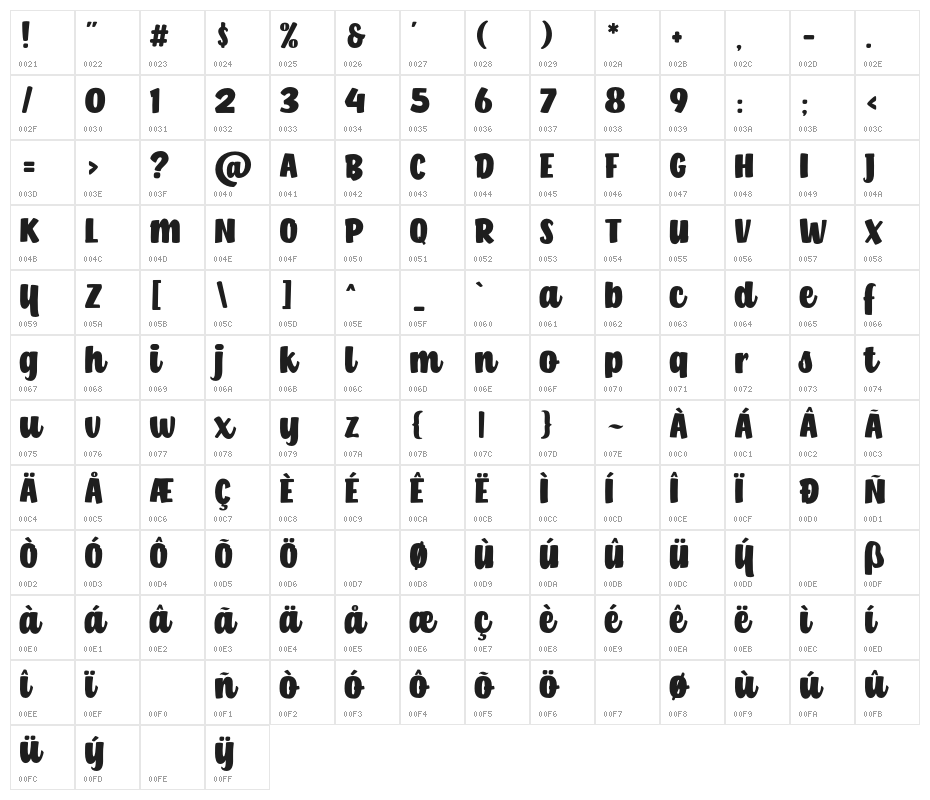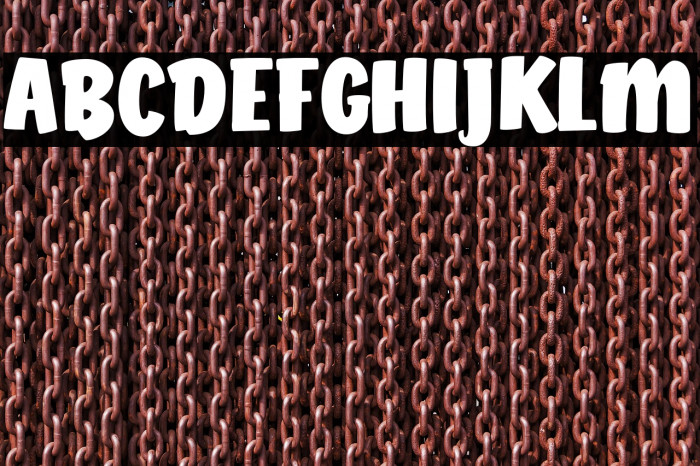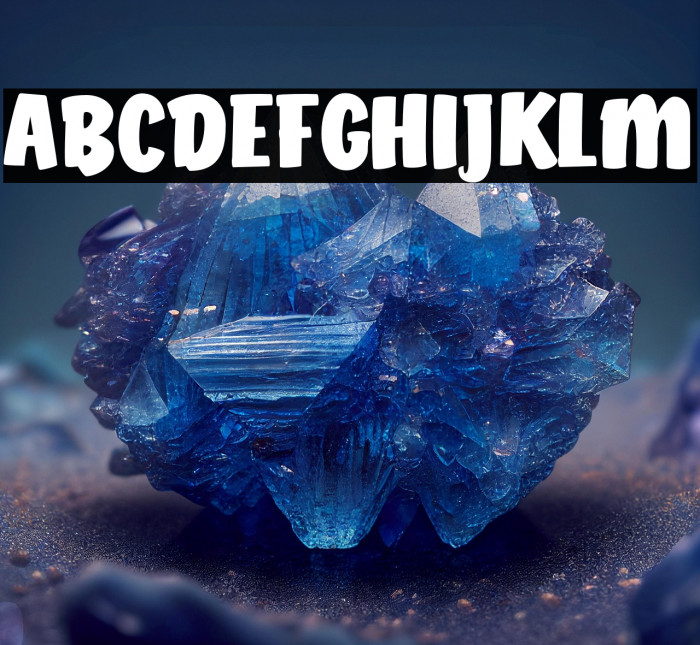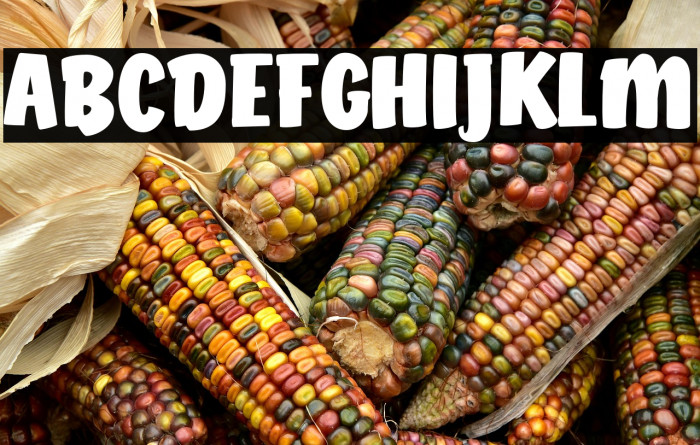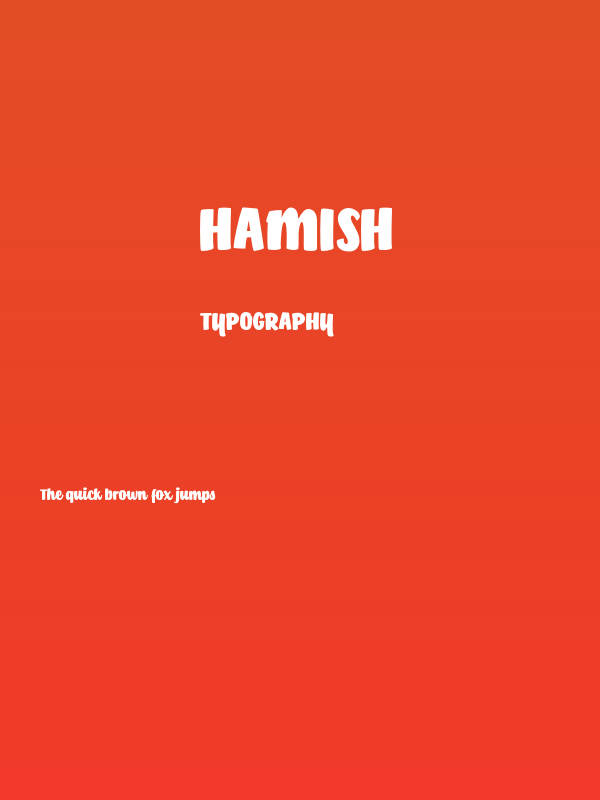
Hamish Font
Hamish Description
This font features bold, rounded characters with a playful and friendly appearance. The uppercase letters are robust and slightly condensed, giving them a strong presence. The lowercase letters maintain a consistent style with smooth curves and a slightly whimsical touch. Numbers are bold and easily legible, matching the overall aesthetic. Special characters are designed with the same boldness and rounded edges, ensuring uniformity across the font. The style is reminiscent of retro or vintage signage, making it suitable for projects that require a fun and approachable look.
Overall StyleVintage
Proposed ProjectsIdeal for children's books, playful branding, retro-themed designs, and eye-catching headlines.